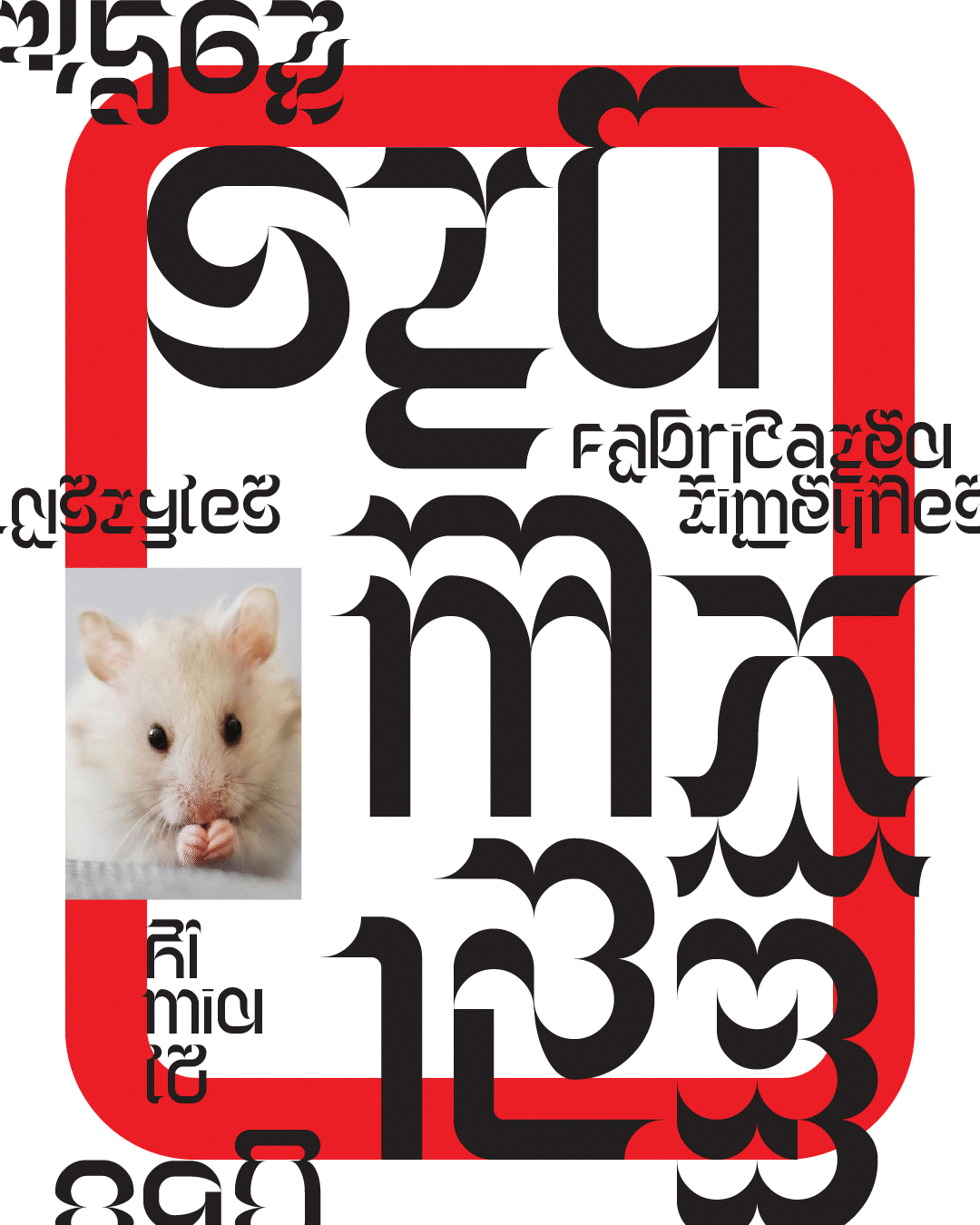
• Part of the Stu font family, Stu Hi utilises flair/swash-like ascenders to extend characters upwards. The character glyphs can be used interchangeably between the various Stu styles to achieve a more "bouncy" typesetting effect.
Stu pays homage to oldstyle numerals, where type designers vary the heights of numbers to resemble a line of running lowercase text. It seeks to address the question: "What if every lowercase alphabet also had varying heights?" The result is a font family with full-fledged ascenders ('Hi'), strictly x-heights ('Mid'), and only descenders ('Lo').